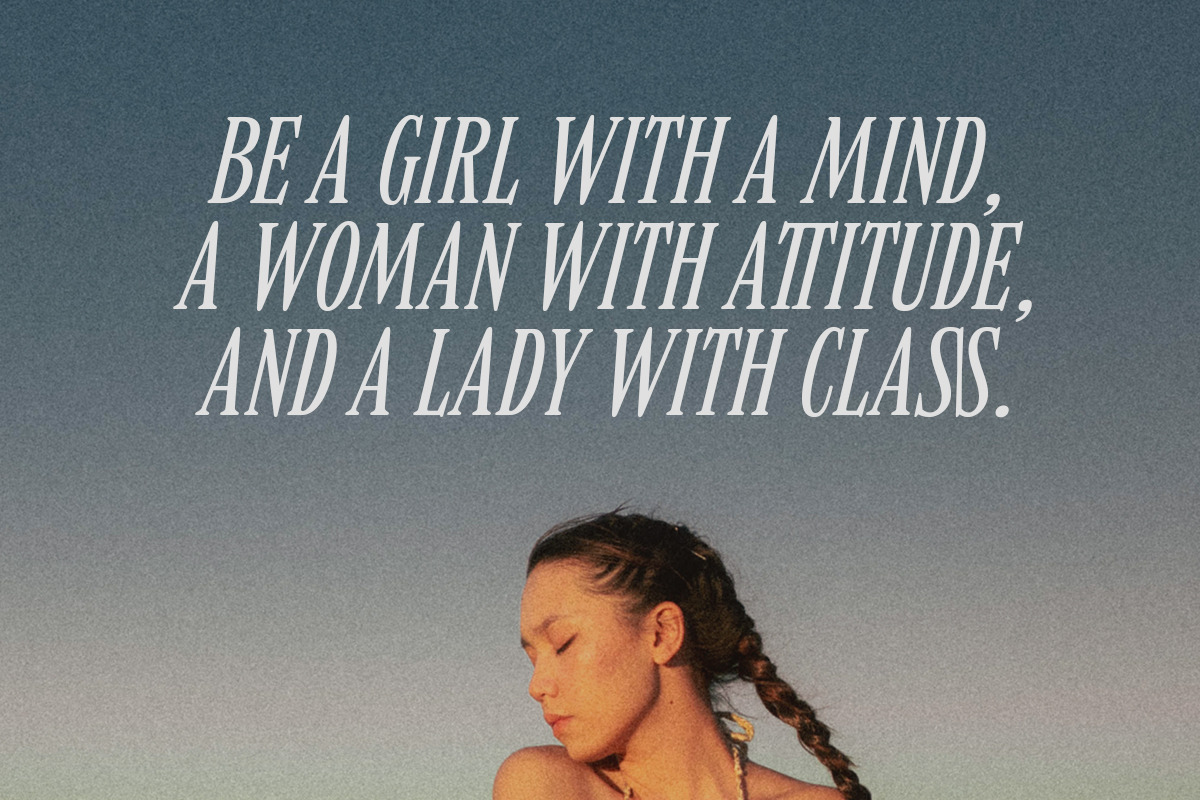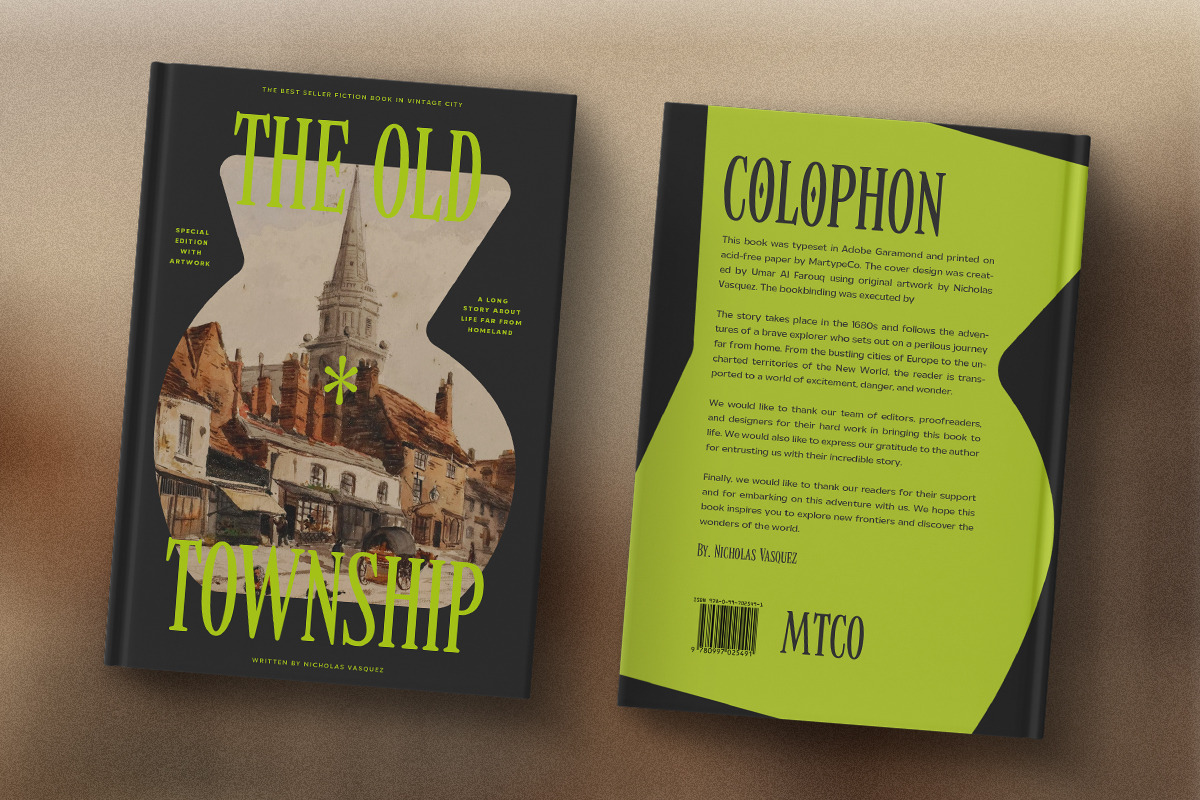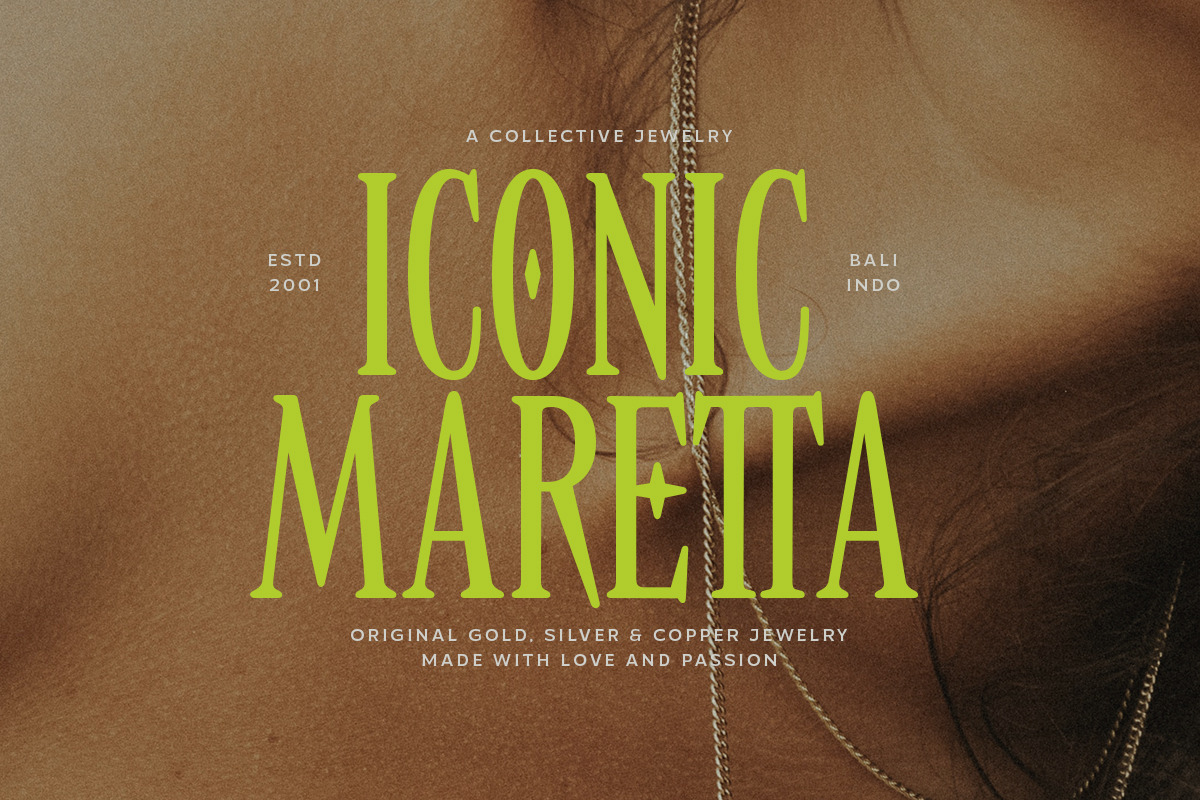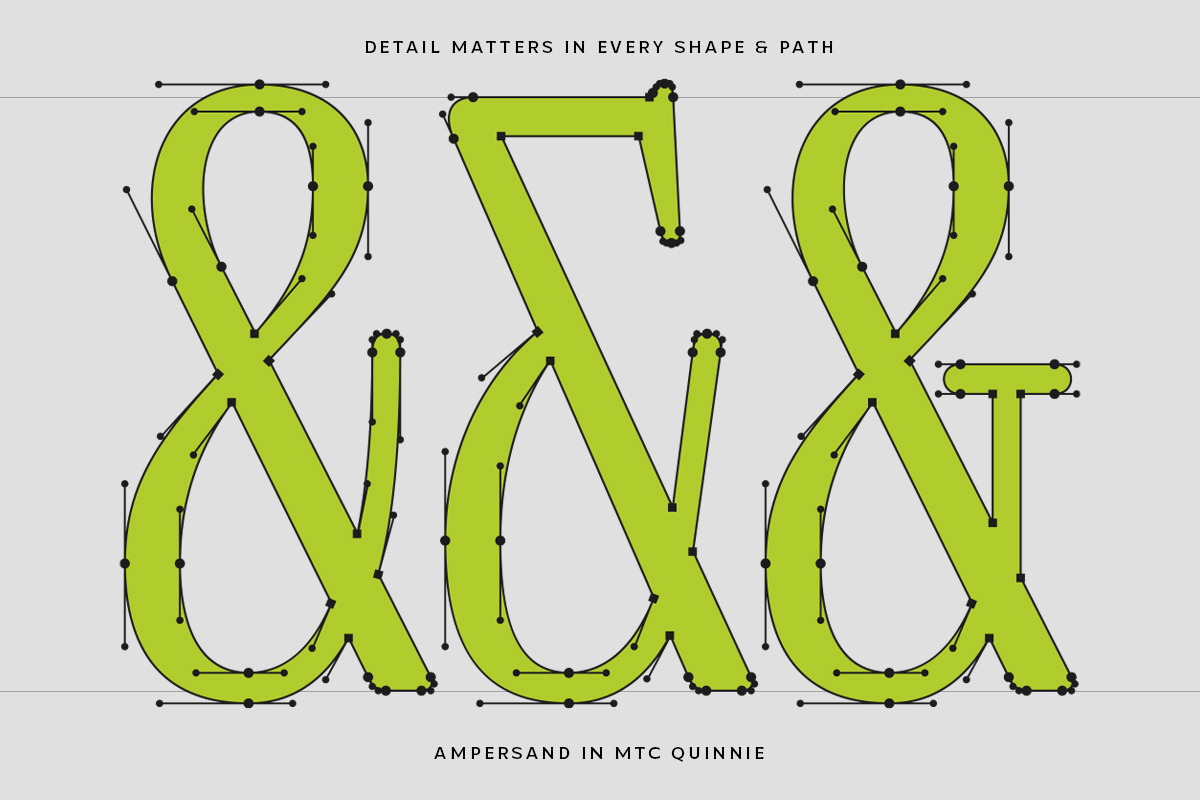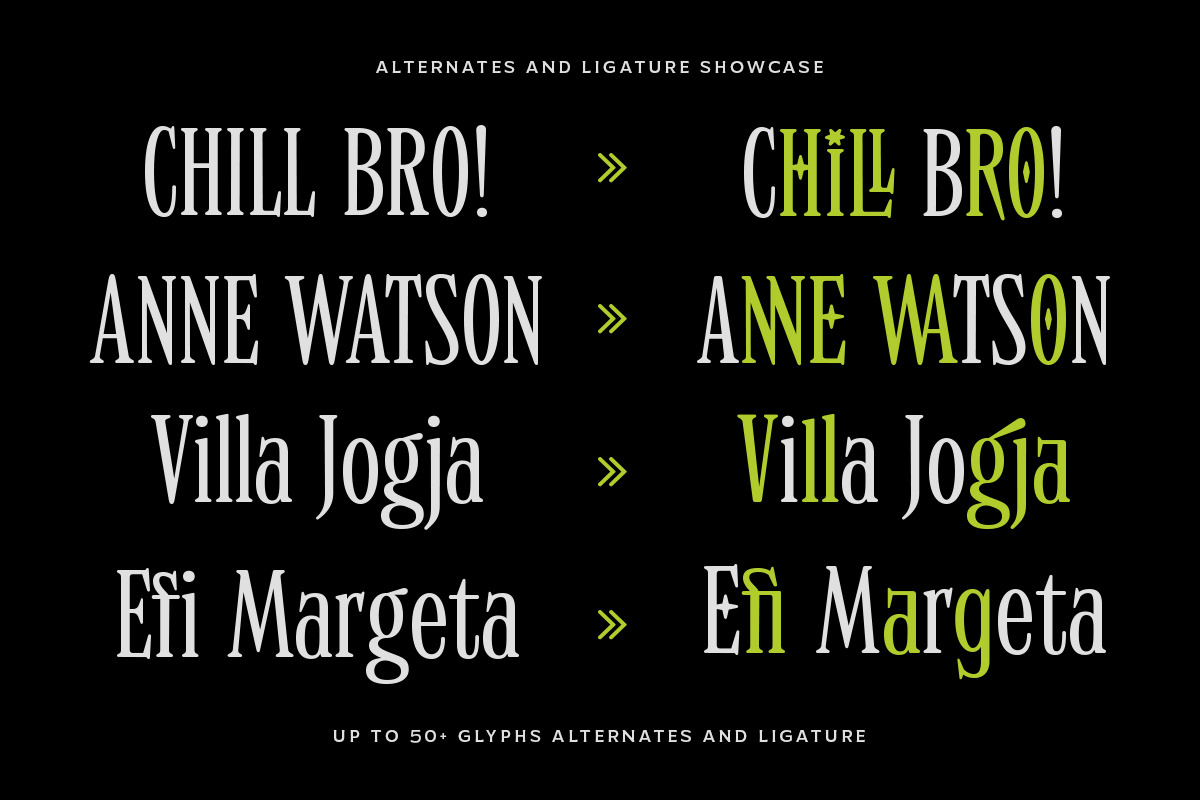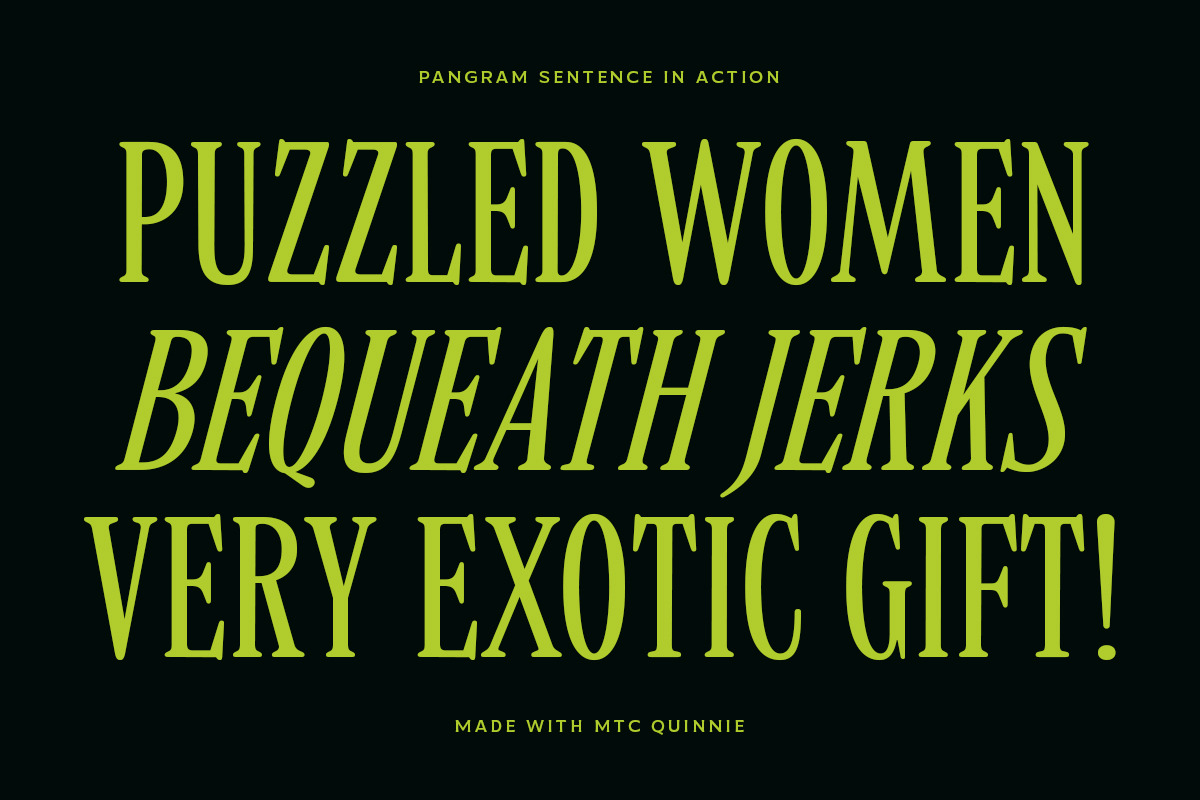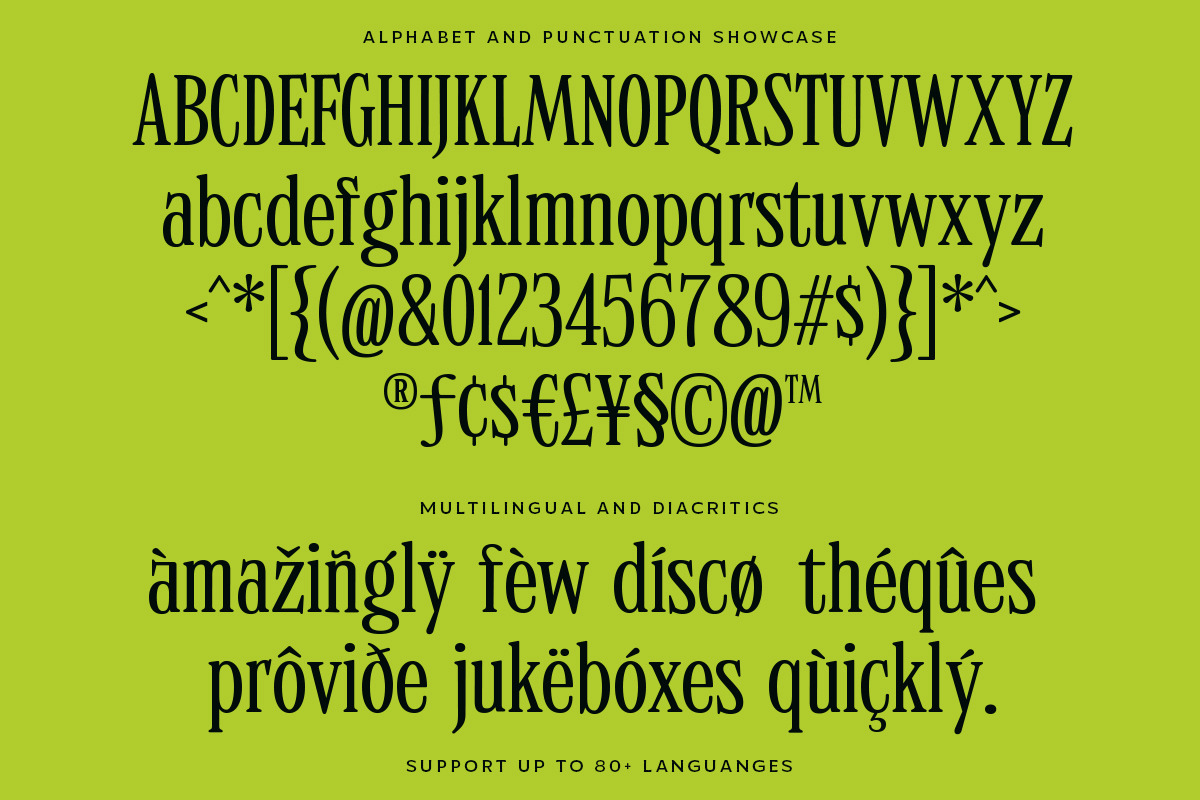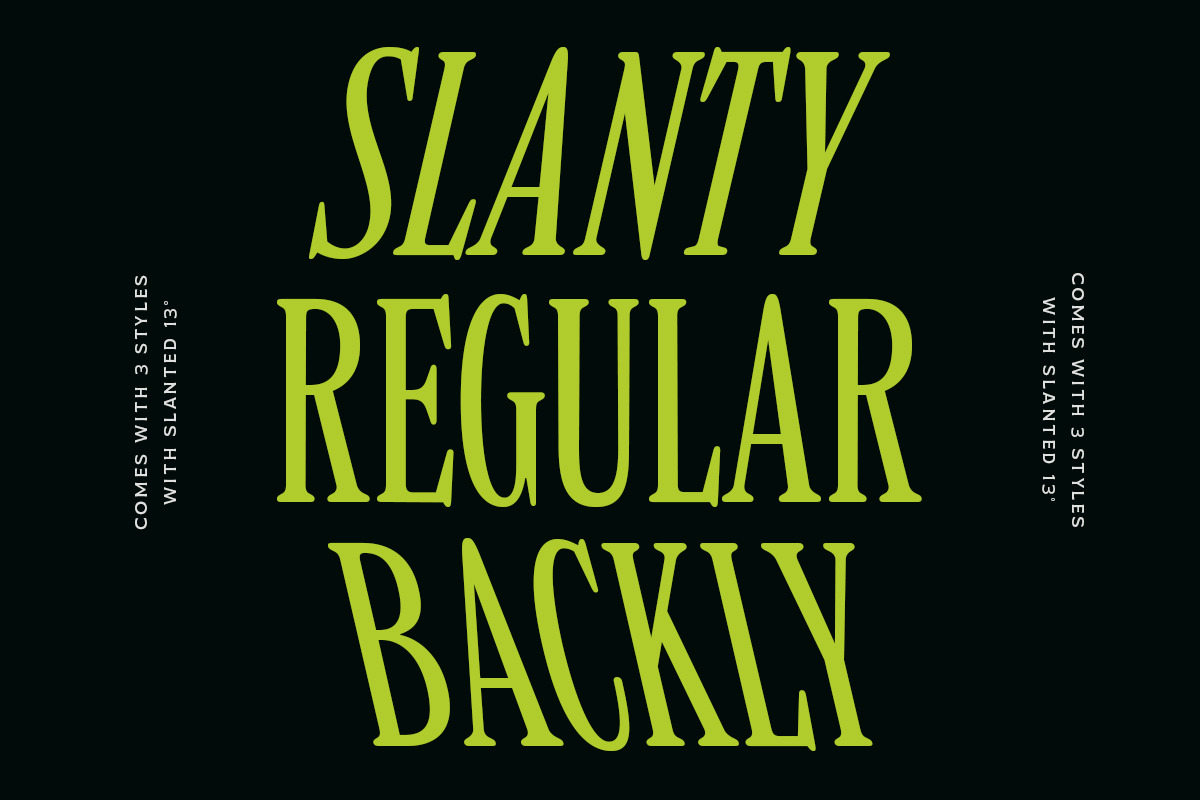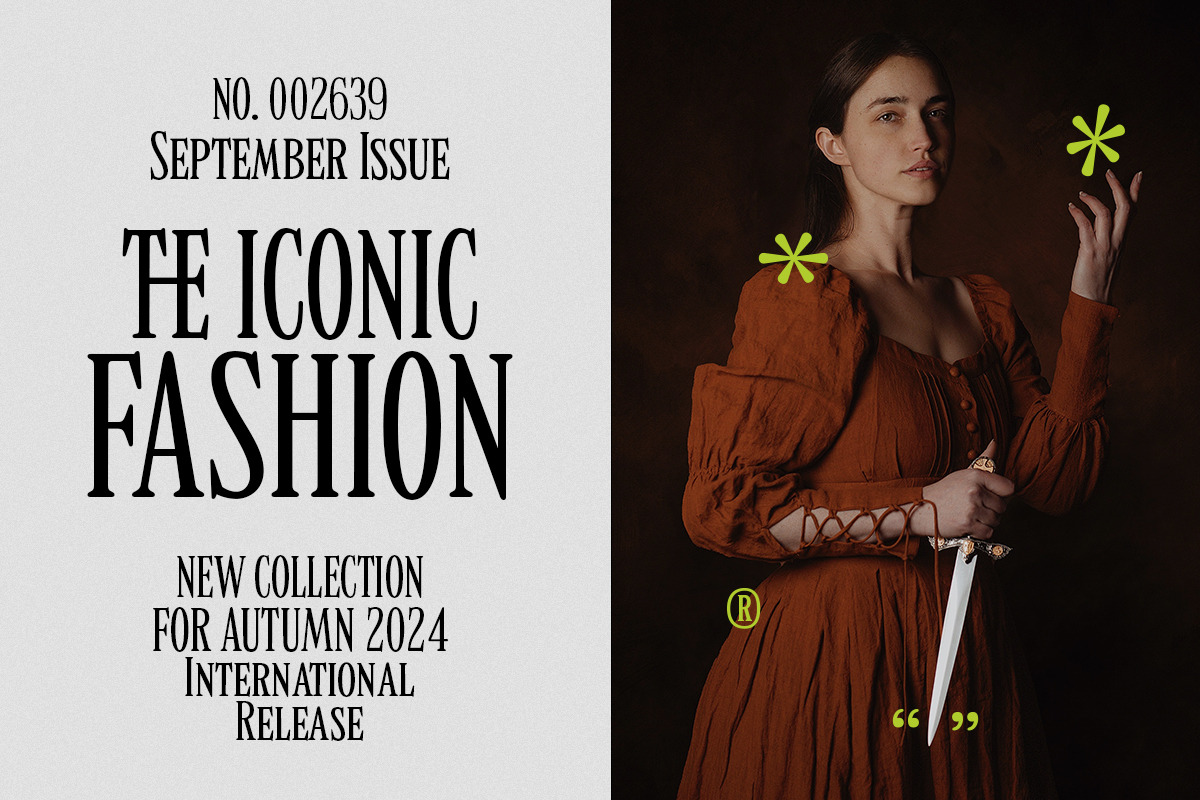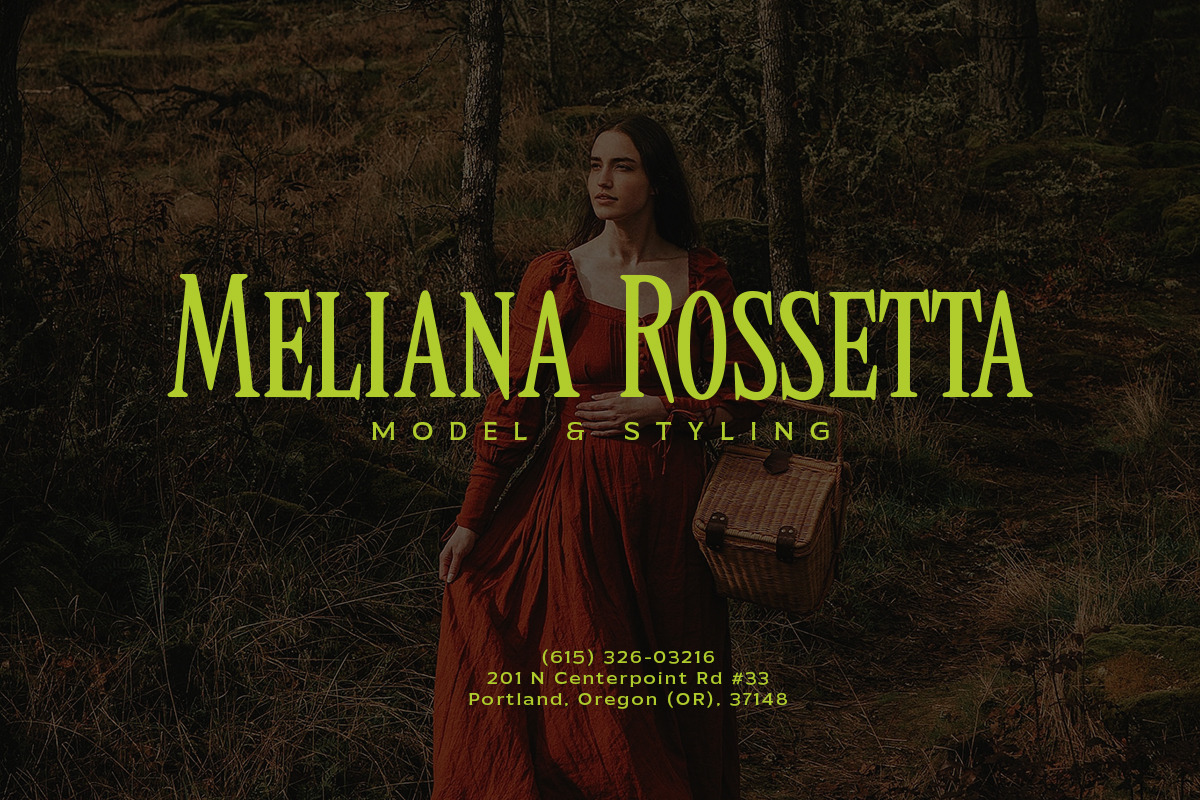
MTC Quinnie - Condensed Serif!
MTC Quinnie is a condensed serif typeface with many alternates and ligature features good choice for designers and editorials. The use of many alternates and ligatures in these fonts adds visual interest and variety, allowing designers to create unique and customized typography. One notable aspect of these fonts is the smoothness of their serifs. The serifs, or small decorative flourishes at the ends of letter strokes, are an essential part of serif typefaces.